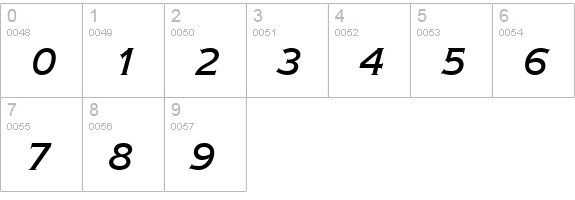
AmericanGotURWTMed Italic Font Details
AmericanGotURWTMed Italic is a distinctive, italic variant in the AmericanGotURWTMed typeface family \xE2\x80\x94 well suited to design and typography projects.
AmericanGotURWTMed Italic is a modern and stylish font that exudes sophistication and elegance. With its sleek curves and bold presence, this font is perfect for making a statement in your designs. Whether you are working on a branding project or creating eye-catching headlines, AmericanGotURWTMed Italic will surely catch the eye of your audience. The best part about AmericanGotURWTMed Italic is that it is completely free to download at FontsMarket.com. This means you can easily access this stunning font and incorporate it into your projects without any additional cost. Don't miss out on this opportunity to enhance your designs with the unique flair of AmericanGotURWTMed Italic - download it today and let your creativity shine!